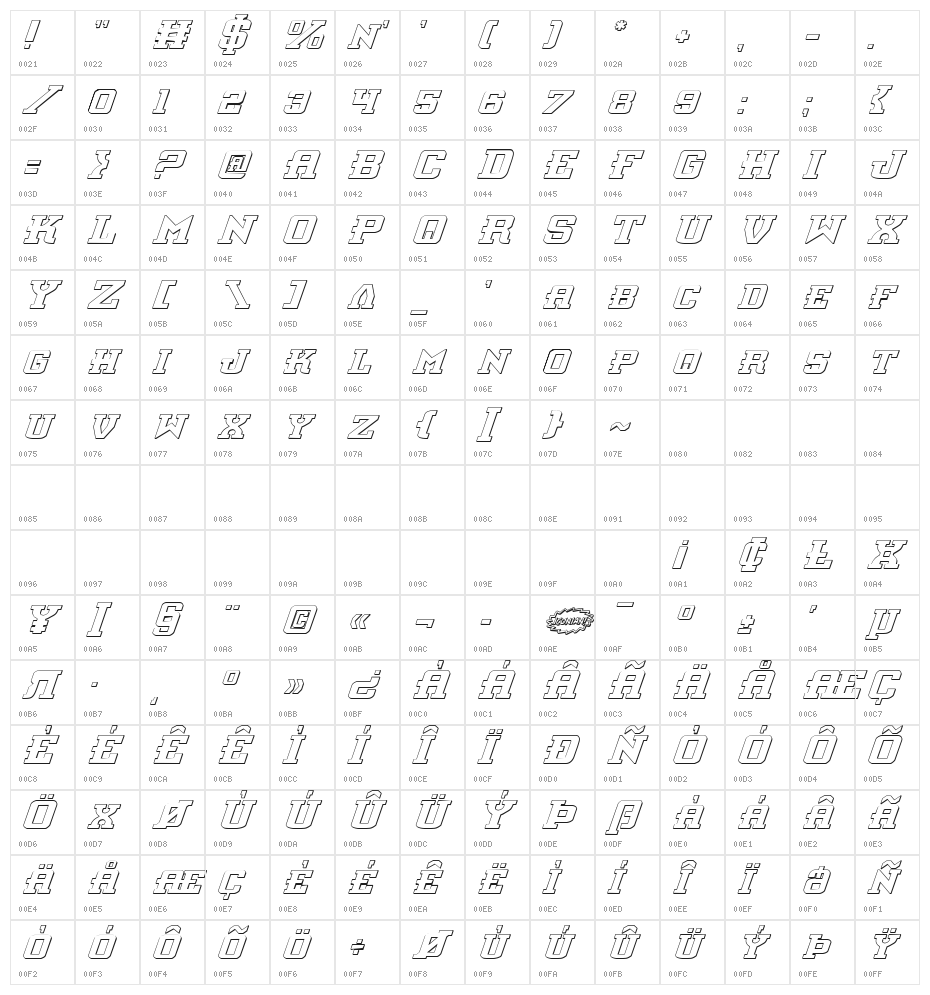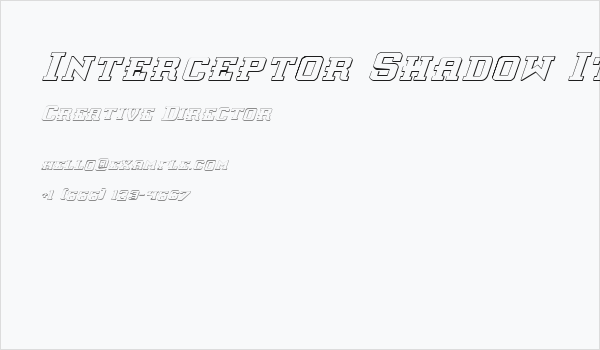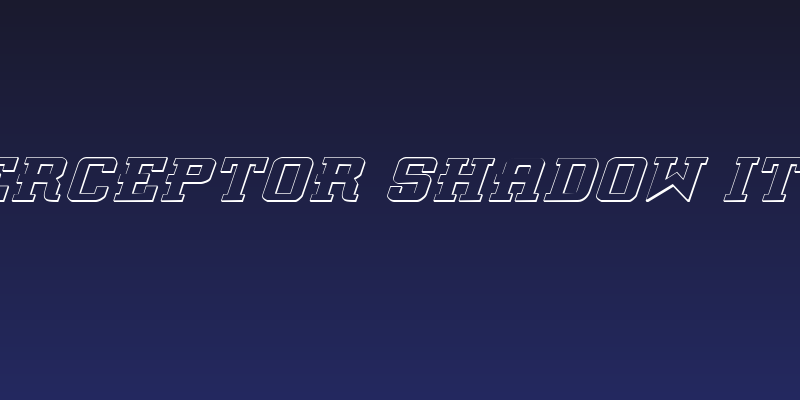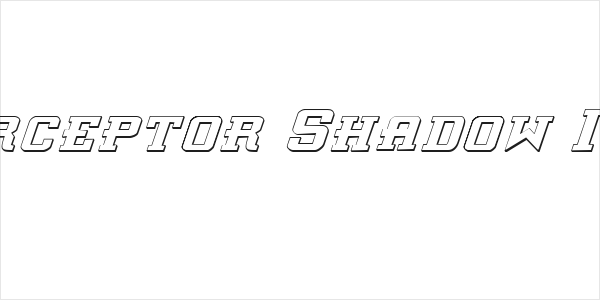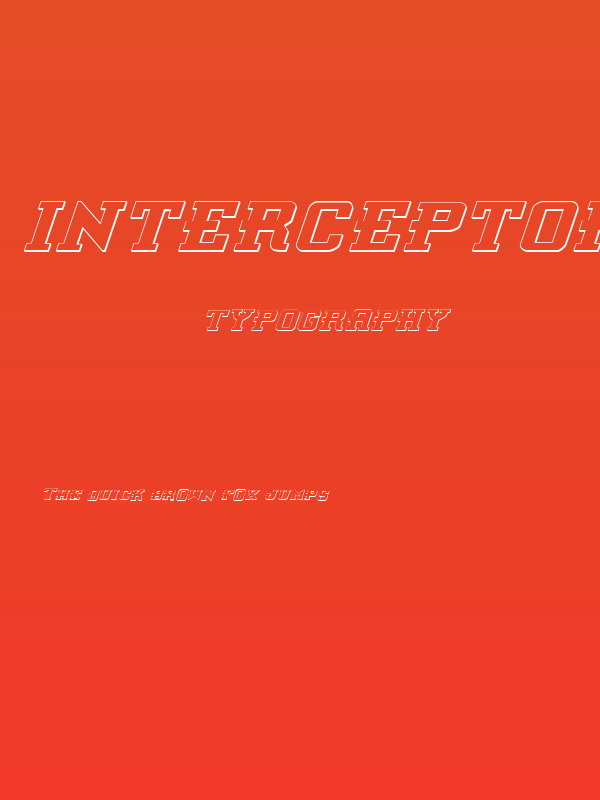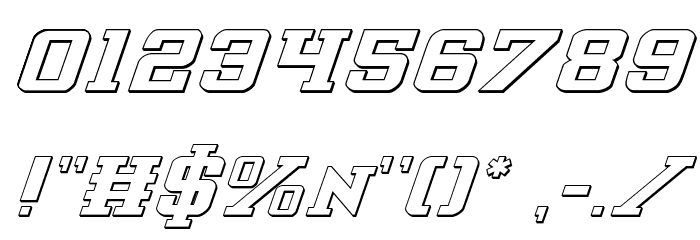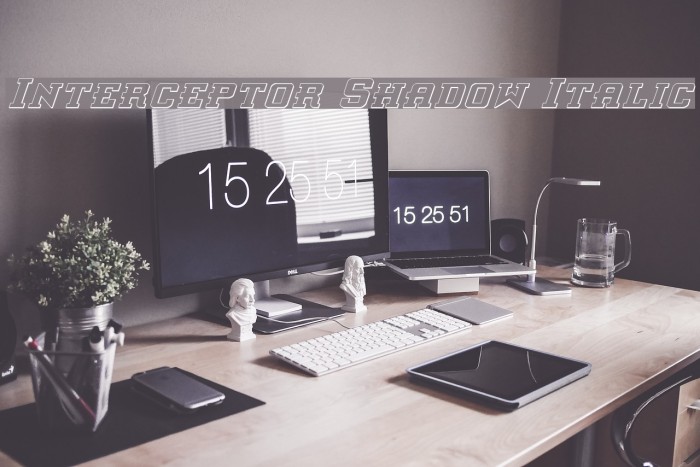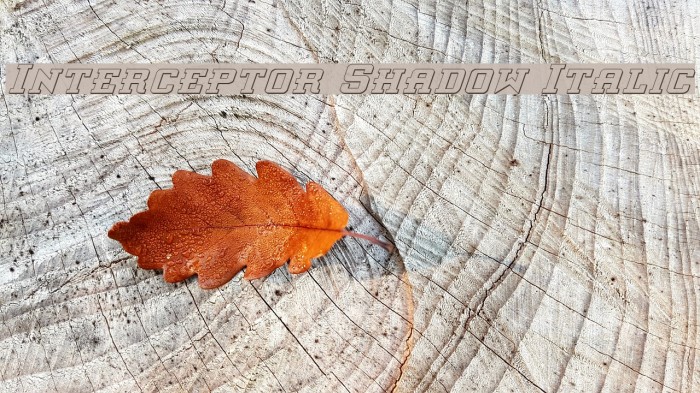
Interceptor Shadow Italic Font
Interceptor Shadow Italic Description
This font features a bold, italicized style with a distinct shadow effect that gives it a three-dimensional appearance. The characters are outlined, creating a sense of depth and dynamism. The uppercase letters are strong and angular, while the lowercase letters maintain a consistent style that complements the uppercase. The numbers are equally bold and follow the same shadowed, italicized design. Special characters are included, maintaining the overall aesthetic. This font is ideal for projects that require a striking and modern look.
| Proposed Projects | Ideal for headlines, posters, logos, and any design needing a bold, eye-catching typeface. |